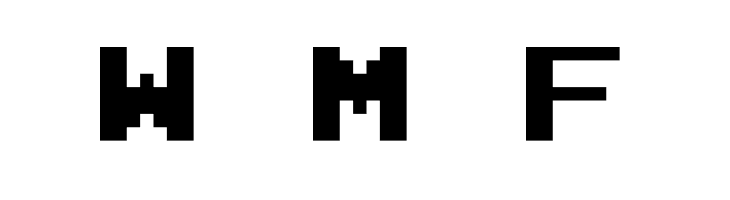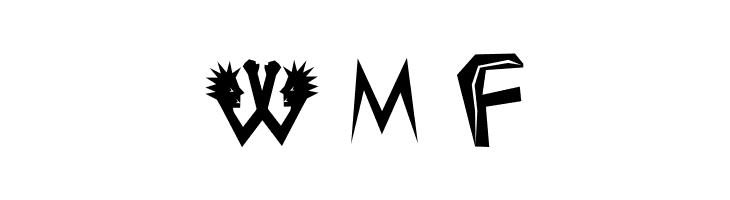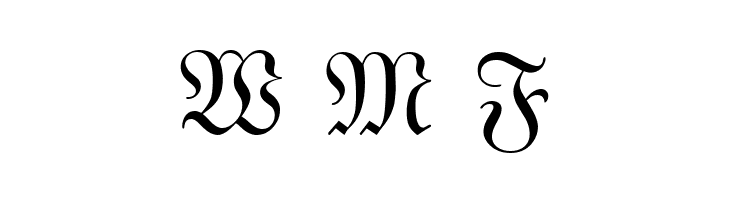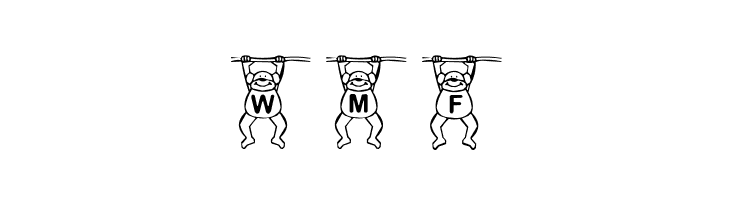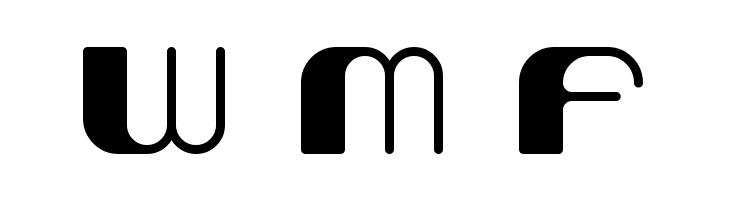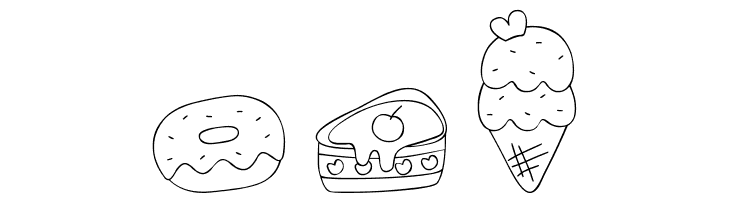
A bold, pixelated font with an 80s cyberpunk vibe.
A retro, pixelated font inspired by classic video game graphics.
A bold and ornate Blackletter font with intricate, angular letterforms.
A traditional blackletter font with intricate, angular strokes and a medieval aesthetic.
A classic serif font with Renaissance-inspired elegance and moderate contrast.
A classic serif font with sharp serifs and balanced stroke contrast, exuding elegance.
A classic, elegant serif font with graceful curves and pronounced serifs.
A traditional blackletter font with intricate detailing and gothic elegance.
A traditional blackletter font with ornate and angular letterforms.
A traditional Blackletter font with intricate detailing and a medieval flair.
A dynamic, expressive handwritten font with fluid, cursive strokes.
A decorative Art Nouveau font with intricate floral and organic motifs.
An ornate Art Nouveau font with flowing lines and intricate details.
A playful, monkey-themed decorative font with characters hanging from a bar.
A traditional script font with elegant, flowing lines and ornate details.
A classic serif font with elegant strokes and refined details.
A playful, retro font inspired by vintage drugstore signage.
A playful, health-themed decorative font with intricate medical imagery.
A playful and elegant script font with flowing, cursive letterforms.
A playful, casual handwritten font with a natural, informal style.
A playful, handwritten font with a casual and informal style.
A dynamic, expressive calligraphic font with bold, sweeping strokes.
A playful font of sweet-themed dingbats with whimsical dessert and fruit icons.
Intricate butterfly and caterpillar dingbats for decorative use.
A decorative, grunge-style font with a distressed, textured appearance.
A bold, graffiti-inspired font with dynamic strokes and urban flair.